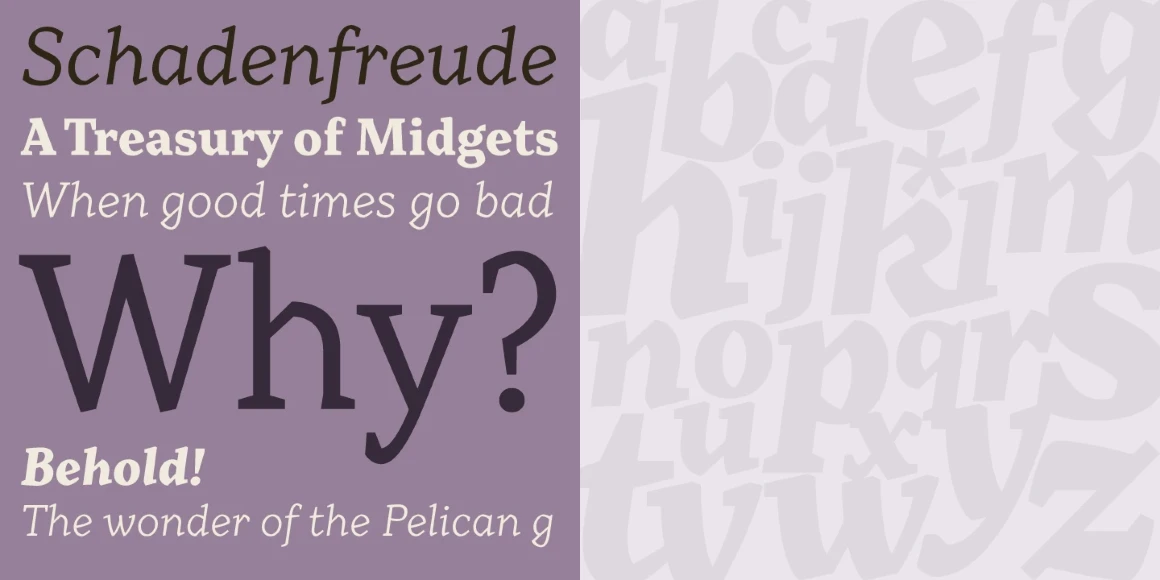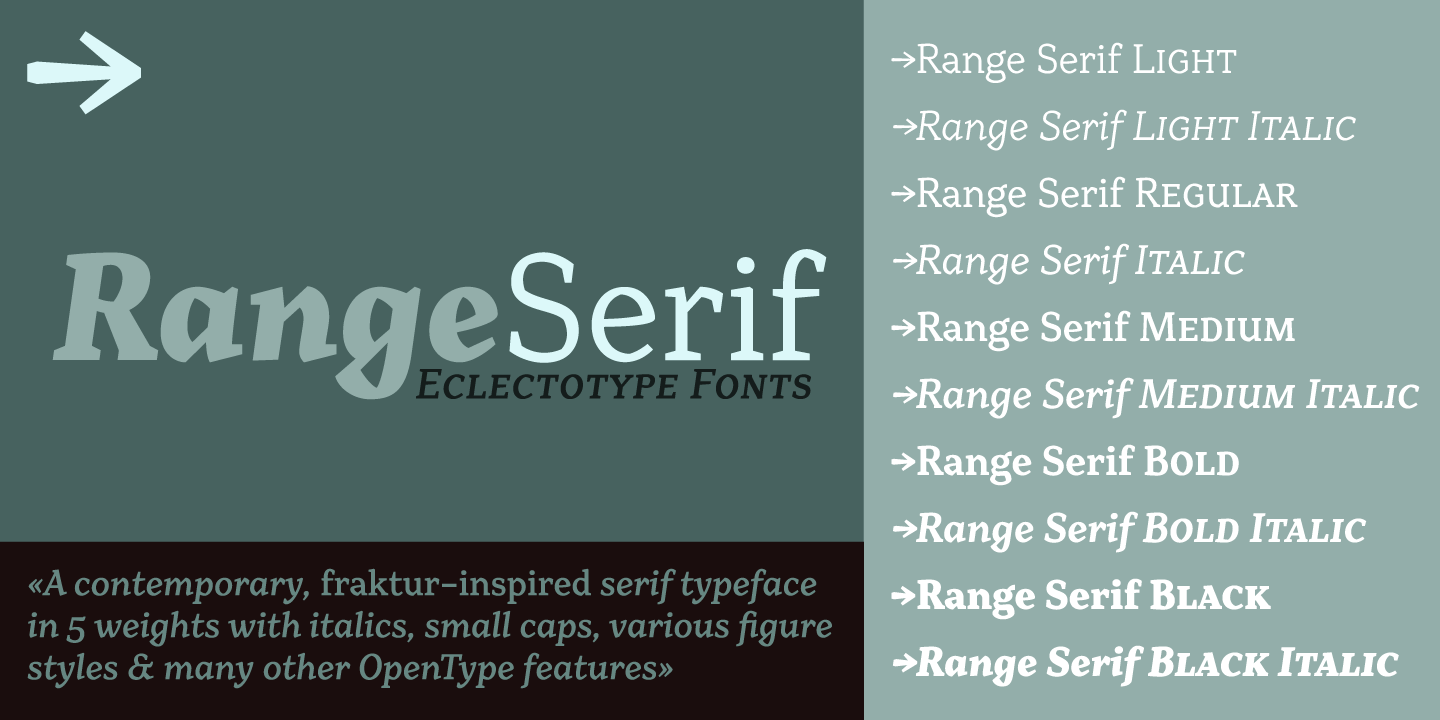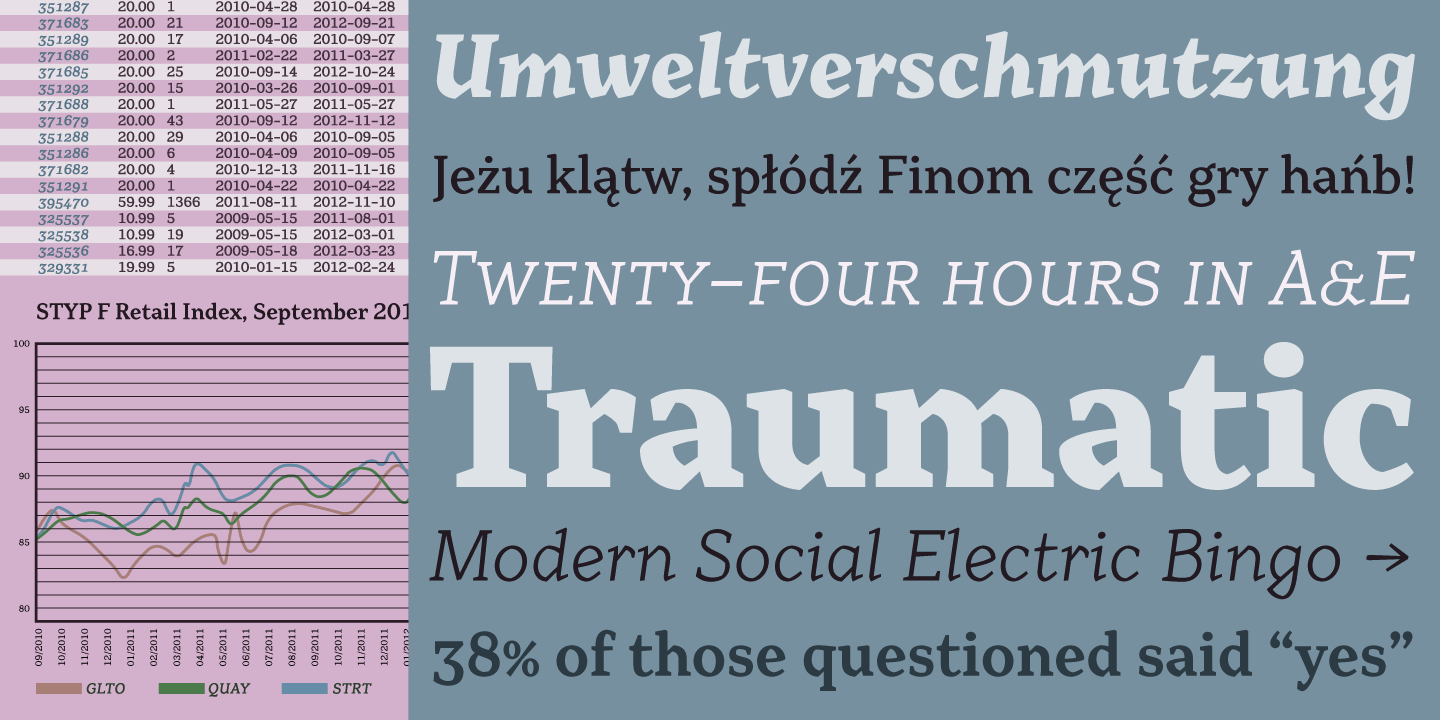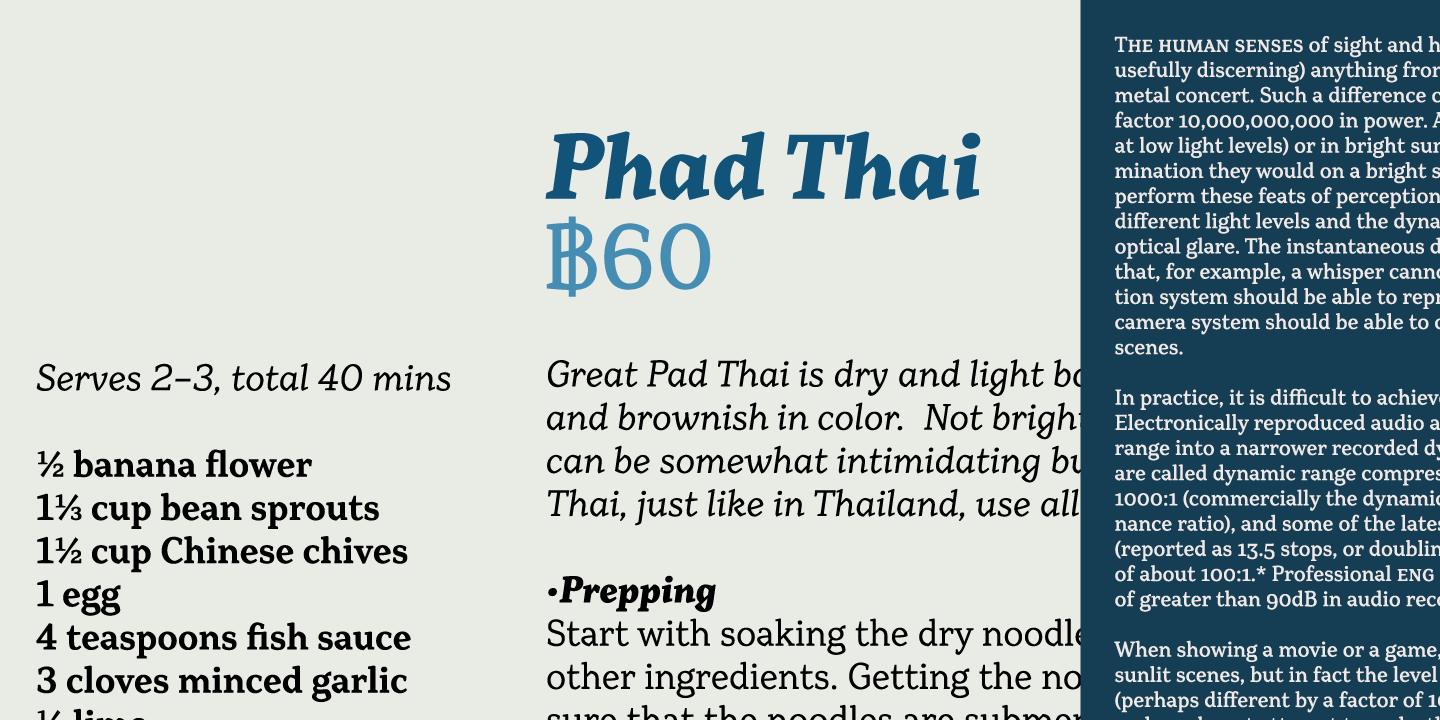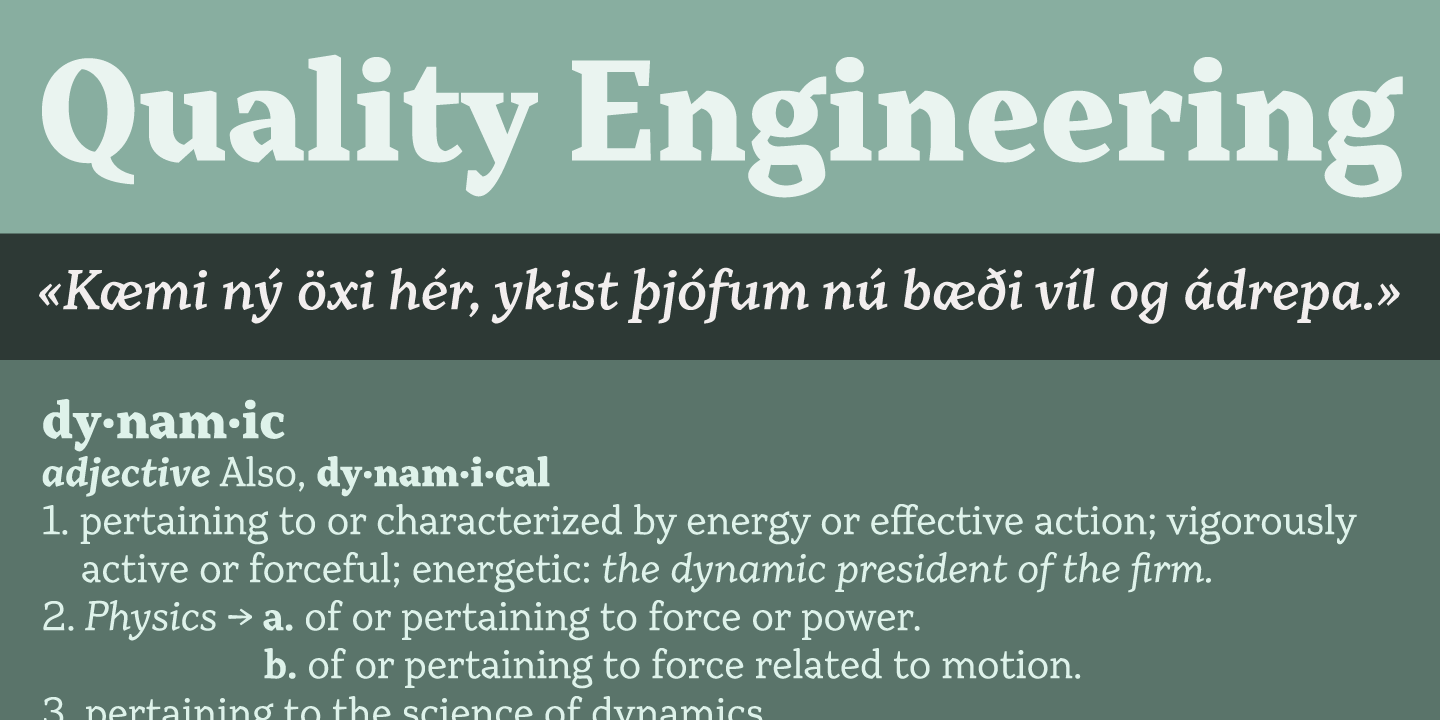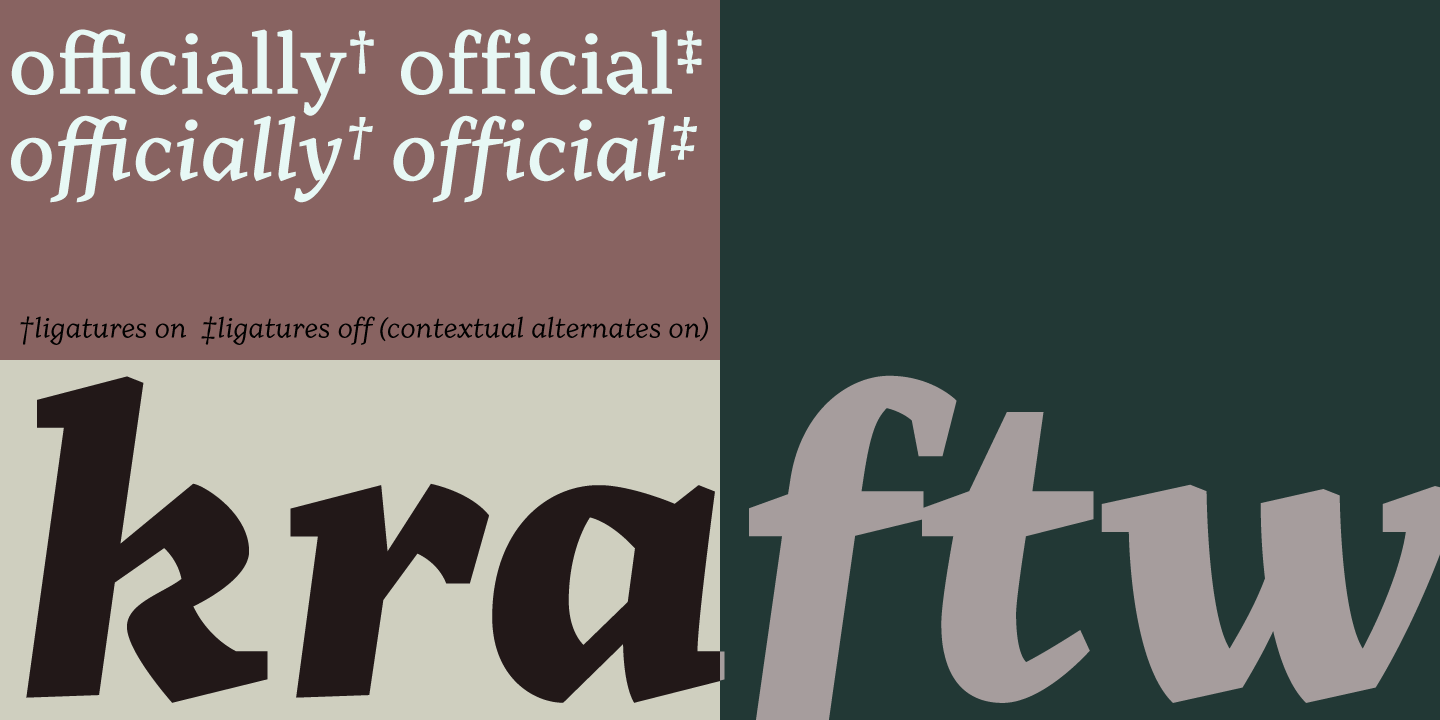
Range Serif
By Dave Rowland
Range Serif is a sharp, contemporary wedge serif family with just a hint of fraktur influence. This typeface is designed for a graphic designer’s demanding typographic work; it’s legible at small sizes, but unique at display sizes. Range Serif is a versatile and fully-featured typeface, ideal for corporate identities, educational textbooks, contemporary art catalogs, and maybe even t-shirt slogans. There are five weights, from light to black, each with corresponding italics.